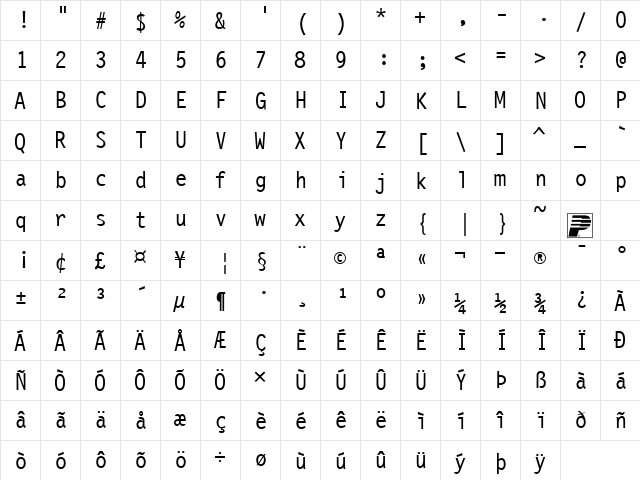
PT Regula Sans Normal
Design Context for PT Regula Sans Typeface
PT Regula Sans takes a measured approach to typography — its balanced proportions and neutral character make it a reliable workhorse for both digital and print work.